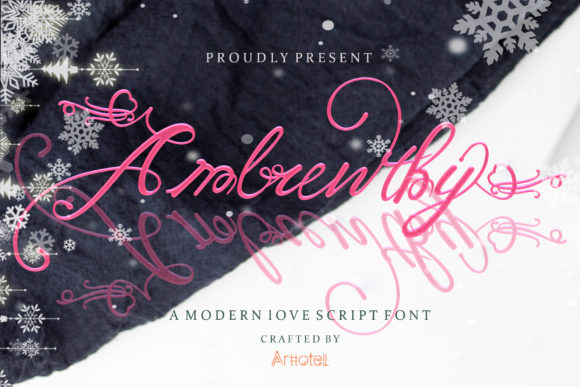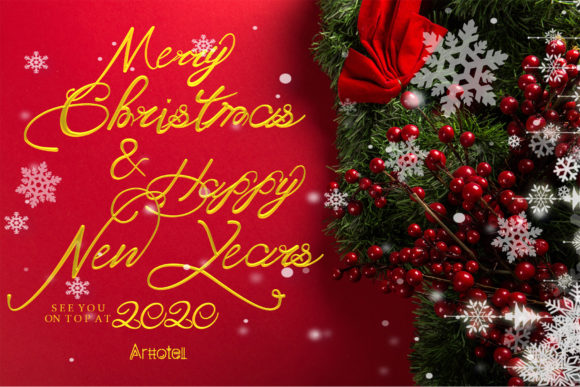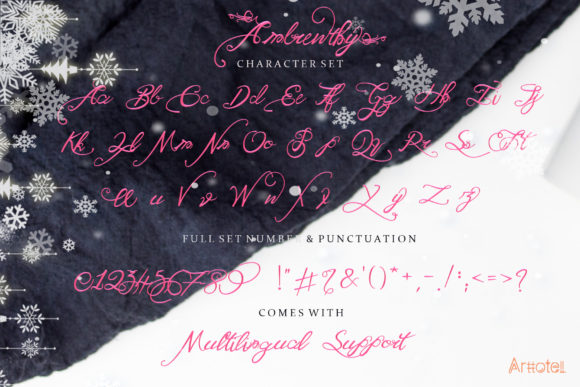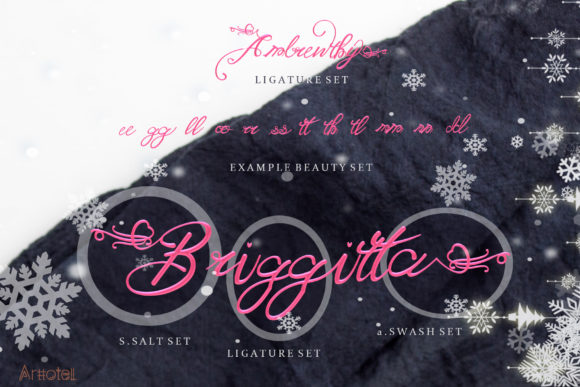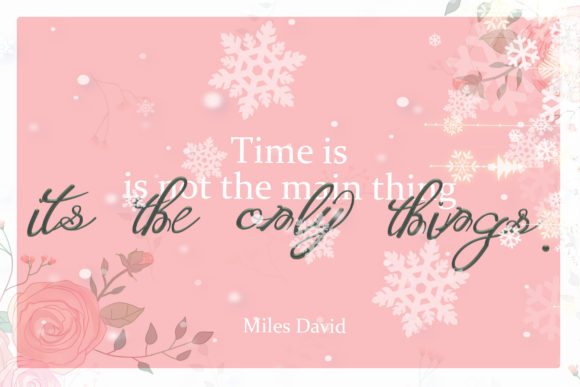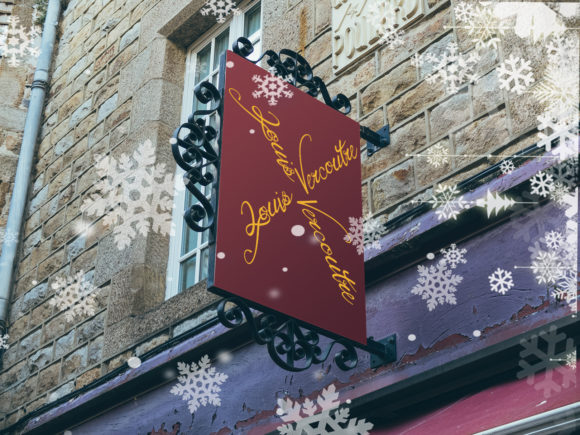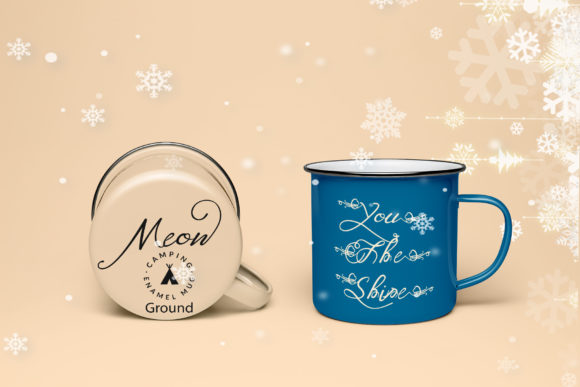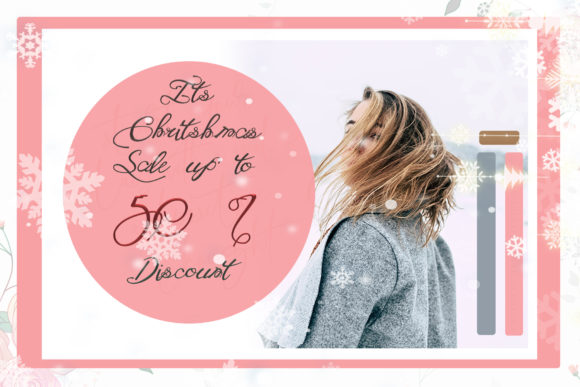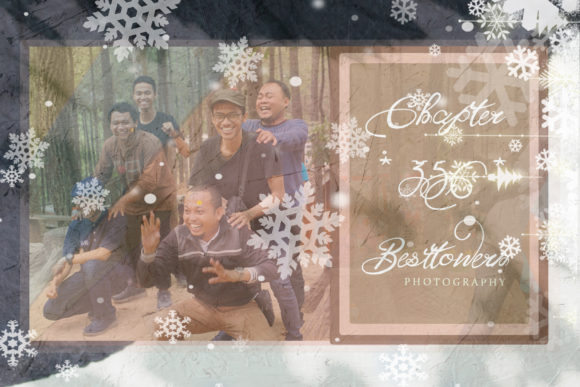
Ambrewthy Font
Ambrewthy is an extraordinary script and the perfect font to express love and compassion. Ignite your creativity with its gorgeous style!